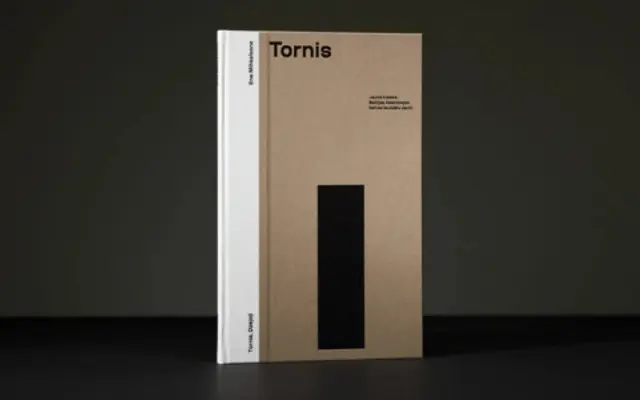
Coil
Brownfox · Anne Buttner, Alexey Murashko
A nine-weight grotesque sans by Anne Buttner and Alexey Murashko, covering Latin and Cyrillic across 72 languages with a matching monospaced variant.
Designed by Anne Buttner and Alexey Murashko for Brownfox, Coil spans nine weights from Light to Bold, each with a corresponding italic, and extends to a monospaced cut. Latin and Cyrillic coverage across 72 languages makes it suited to multilingual publishing and editorial work. The range of weights and the mono subfamily give it enough range for both running text and interface use.
Coil presents as a contemporary grotesque sans-serif with a full range of weights and italics, plus a monospaced variant, suggesting a workhorse text family in the grotesque tradition.